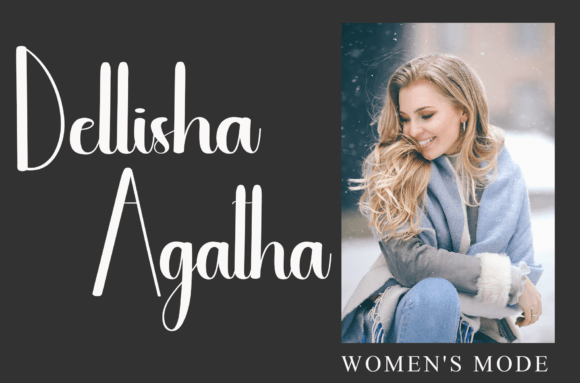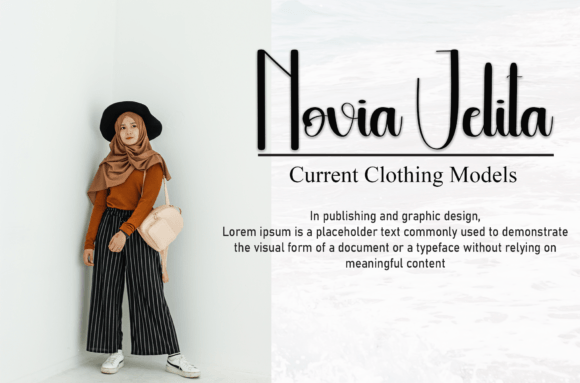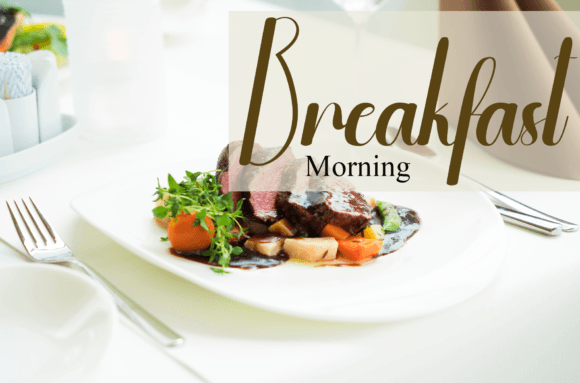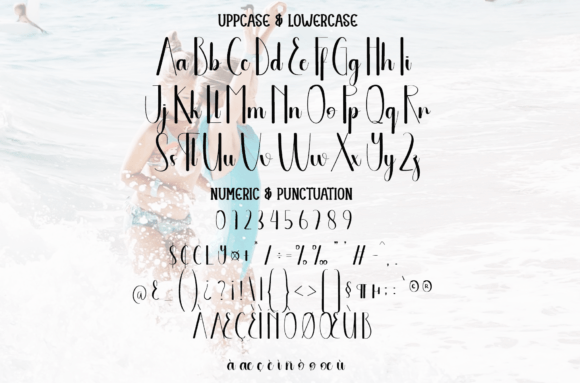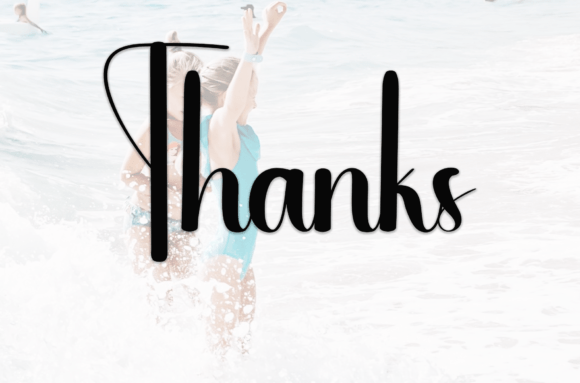
The Joy of Typography: Discovering the Enjoyable Font
I’ll never forget the time I was working on a wedding invitation project, and my client asked me to create a custom design that would reflect their playful and romantic personalities. As I began to brainstorm ideas, I realized that the font was the key to setting the tone for the entire design. After hours of searching, I stumbled upon the Enjoyable font, and it was love at first sight! 💕
Enjoyable is a sweet and friendly handwritten font that’s perfect for adding a touch of whimsy to any design. In this article, I’ll share my experience with this beautiful font, its features, and how to make the most of it in your designs.
An Honest Review of Enjoyable Font
- ✨ Fresh and neat handwriting style that’s perfect for wedding invitations, cards, and other designs that need a personal touch
- 💕 Wide range of applications, from digital designs to print materials
- 🎉 Fun and playful, yet elegant and sophisticated
While Enjoyable is an amazing font, there are a few things to keep in mind:
- 🤔 Some letters, like the uppercase “Q” and “J”, have a slightly quirky design that might not appeal to everyone
- ⚠️ The font may not be suitable for very long blocks of text, as it can become a bit overwhelming
- Explore the font’s OpenType features, such as glyphs and stylistic alternates, to add more depth and interest to your design
The Backstory of Enjoyable Font
Enjoyable was designed by a talented typographer who wanted to create a font that would bring joy and happiness to designers and readers alike. With its fresh and neat handwriting style, Enjoyable is perfect for designs that need a personal touch.
Q: What is the Enjoyable font best used for?
A: Enjoyable is perfect for wedding invitations, cards, and other designs that need a personal touch.